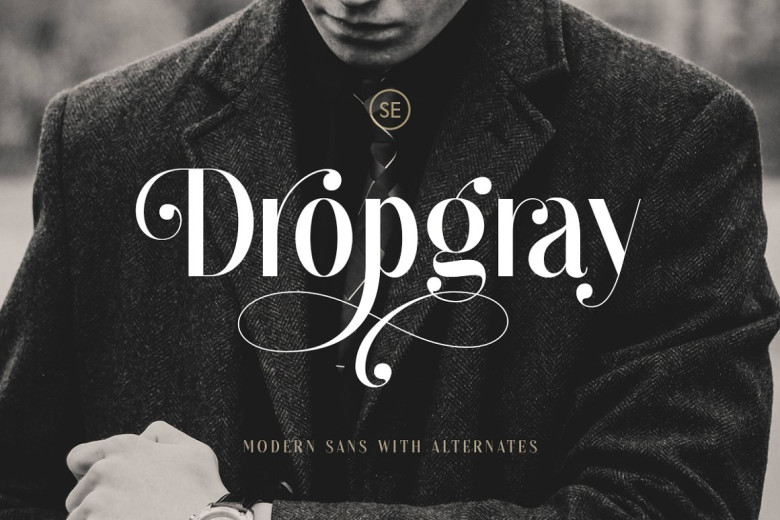
Dropgray Font
Dropgray is an elegant sans-serif font. It also has many alternates. With such an array of alternates, the shape and proportion, and even the total look, will allow you to more fully present ideas in your work or Logo than ever before with Dropgray.
Dropgray Sans Serif Font